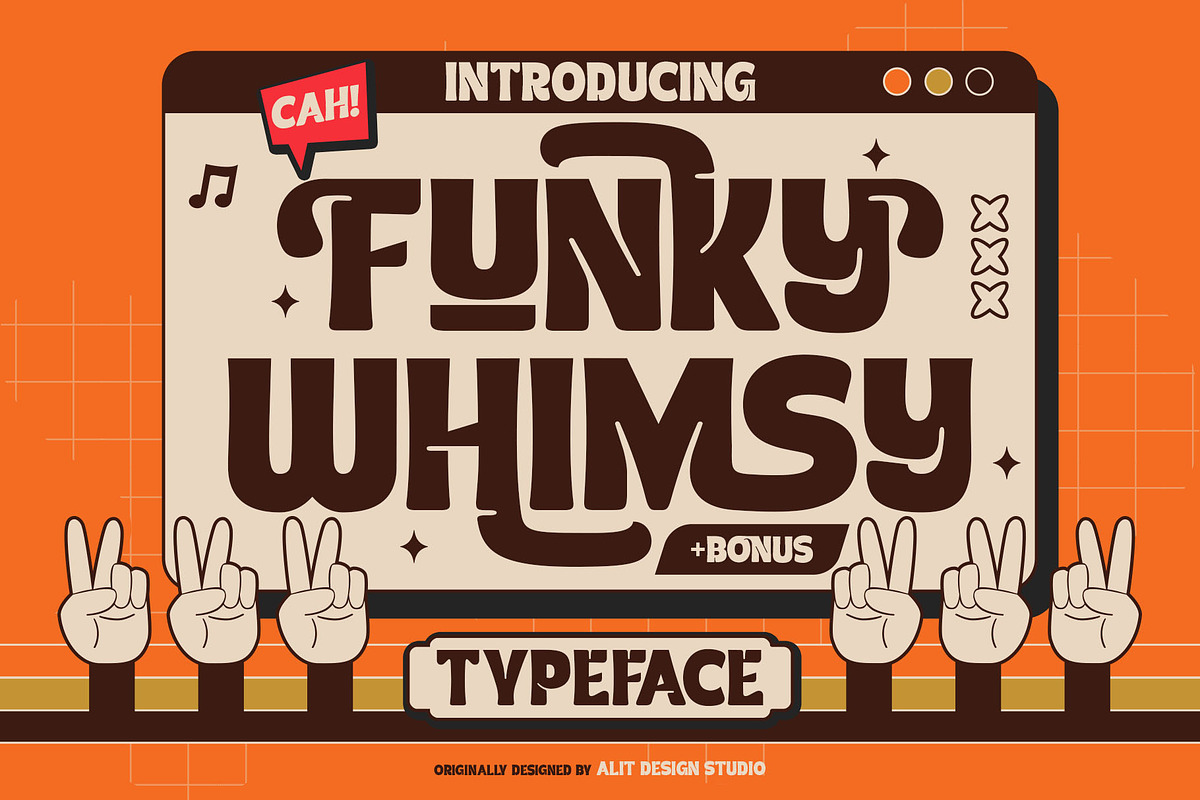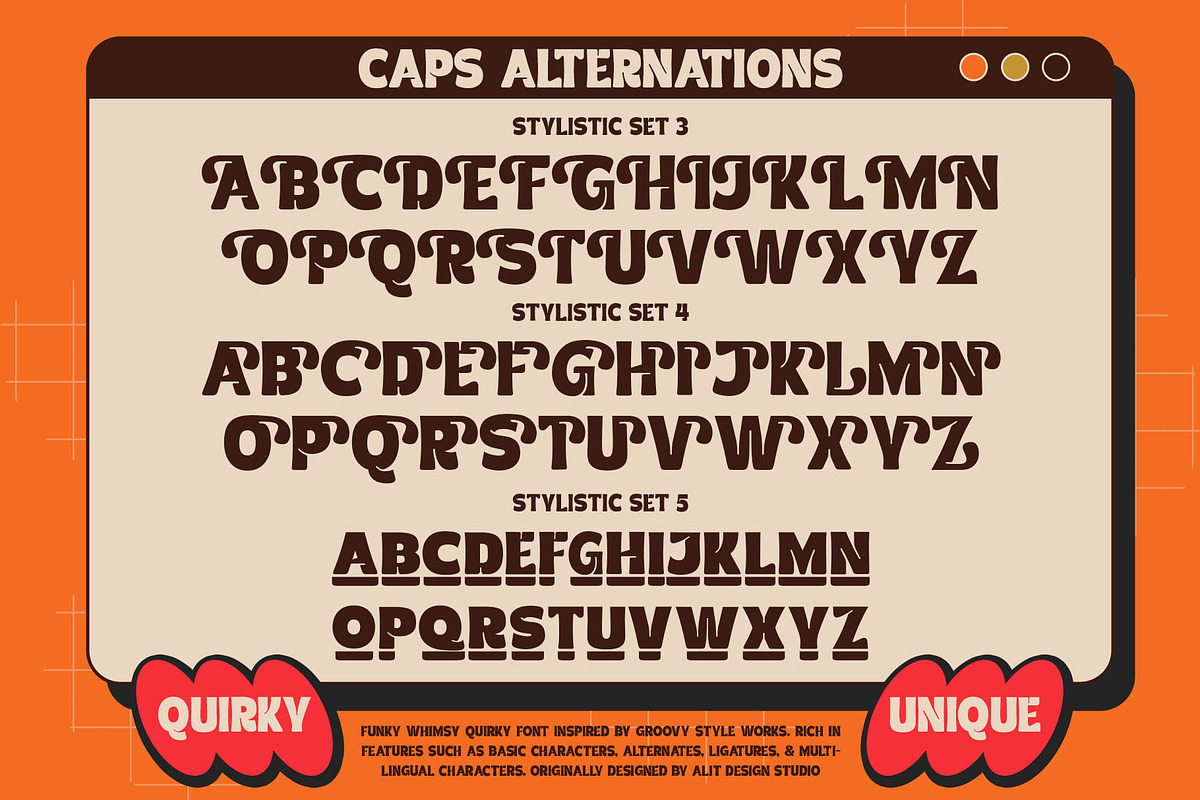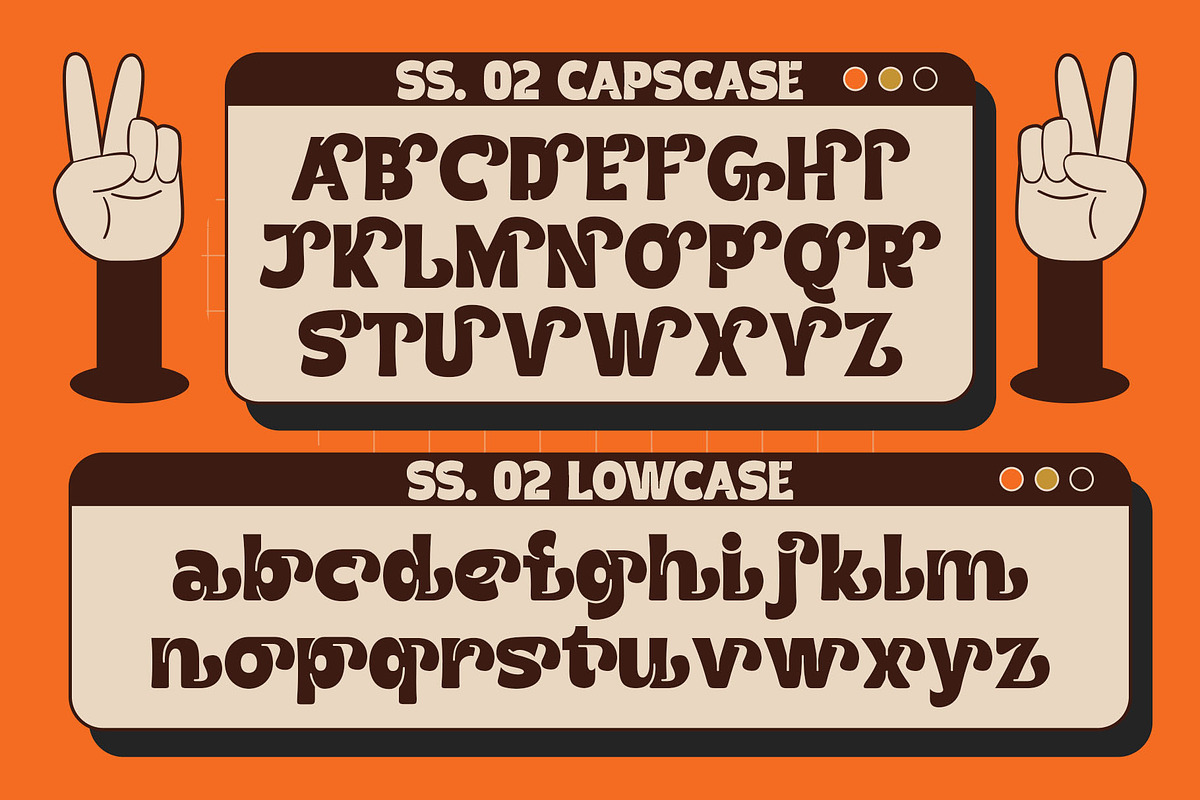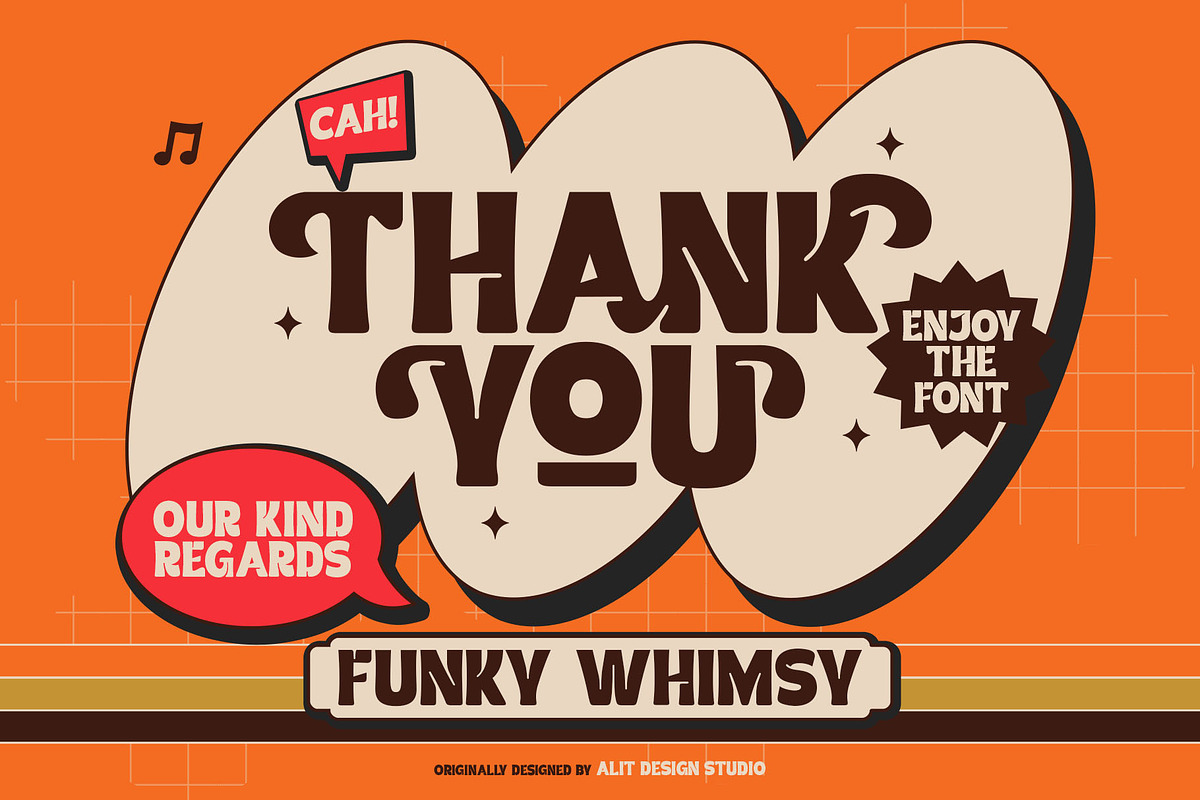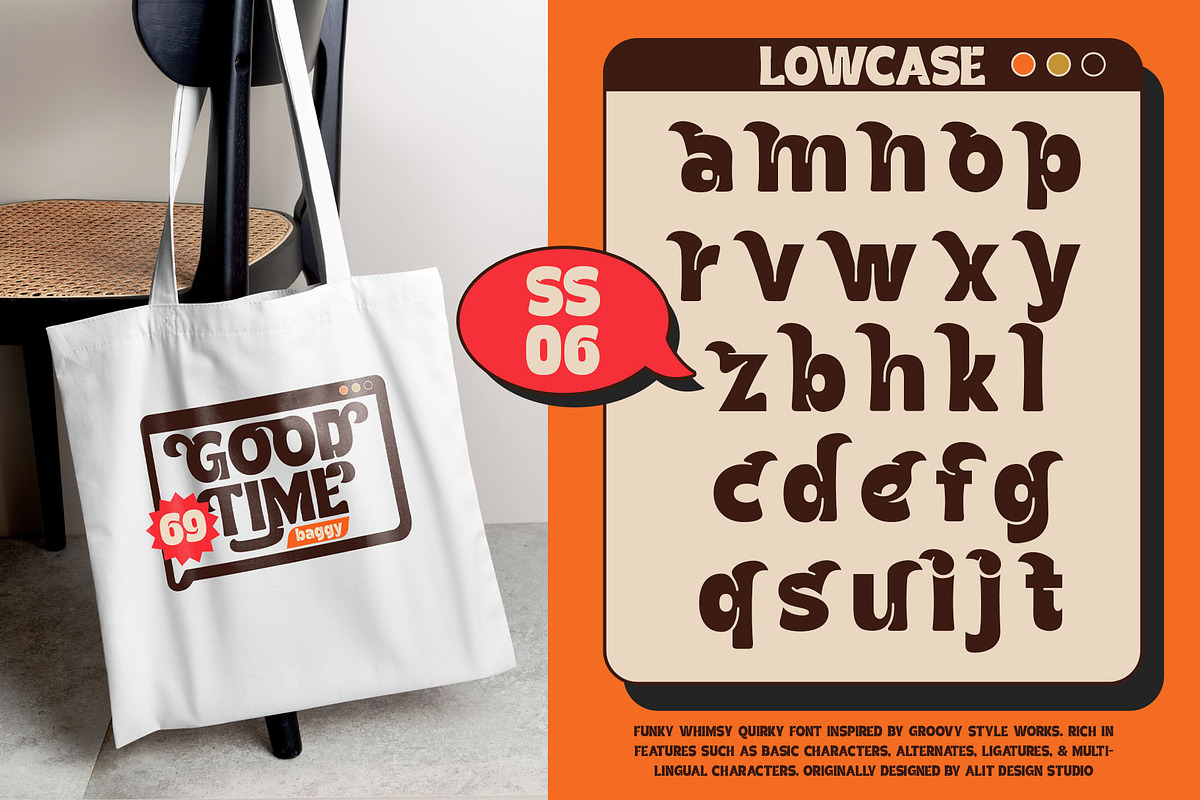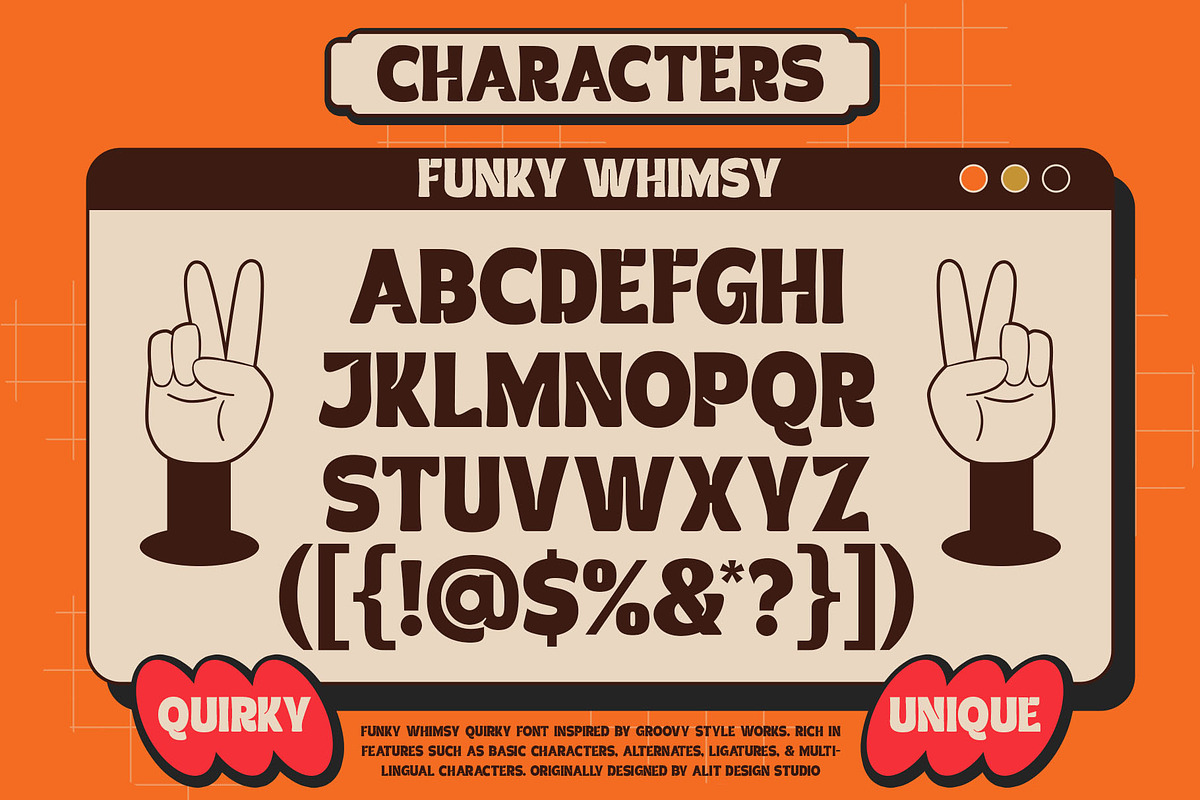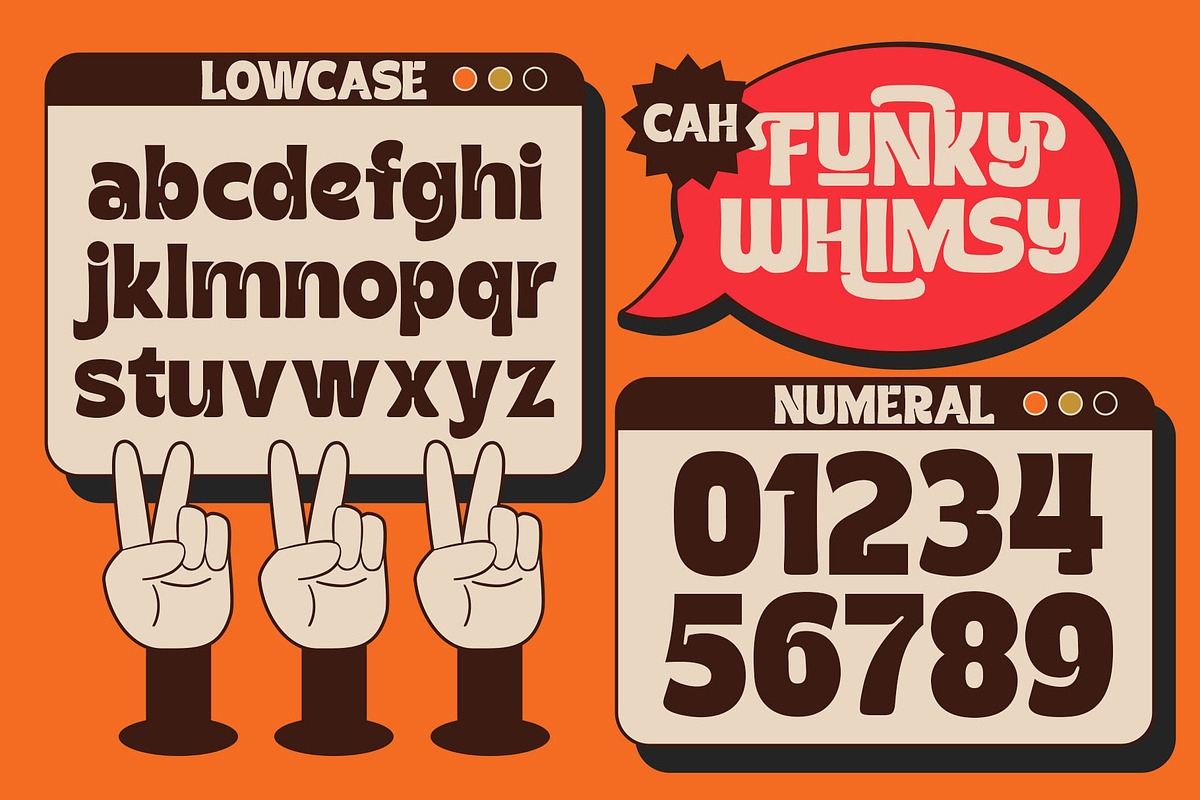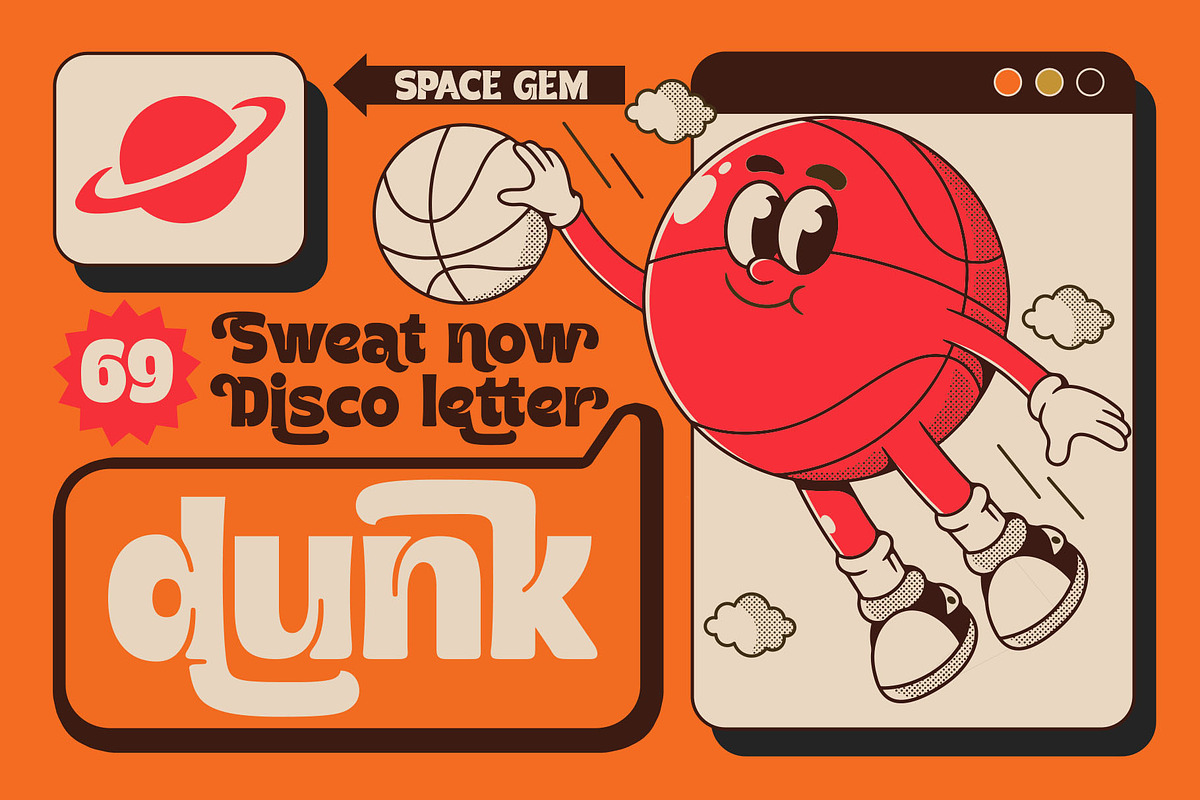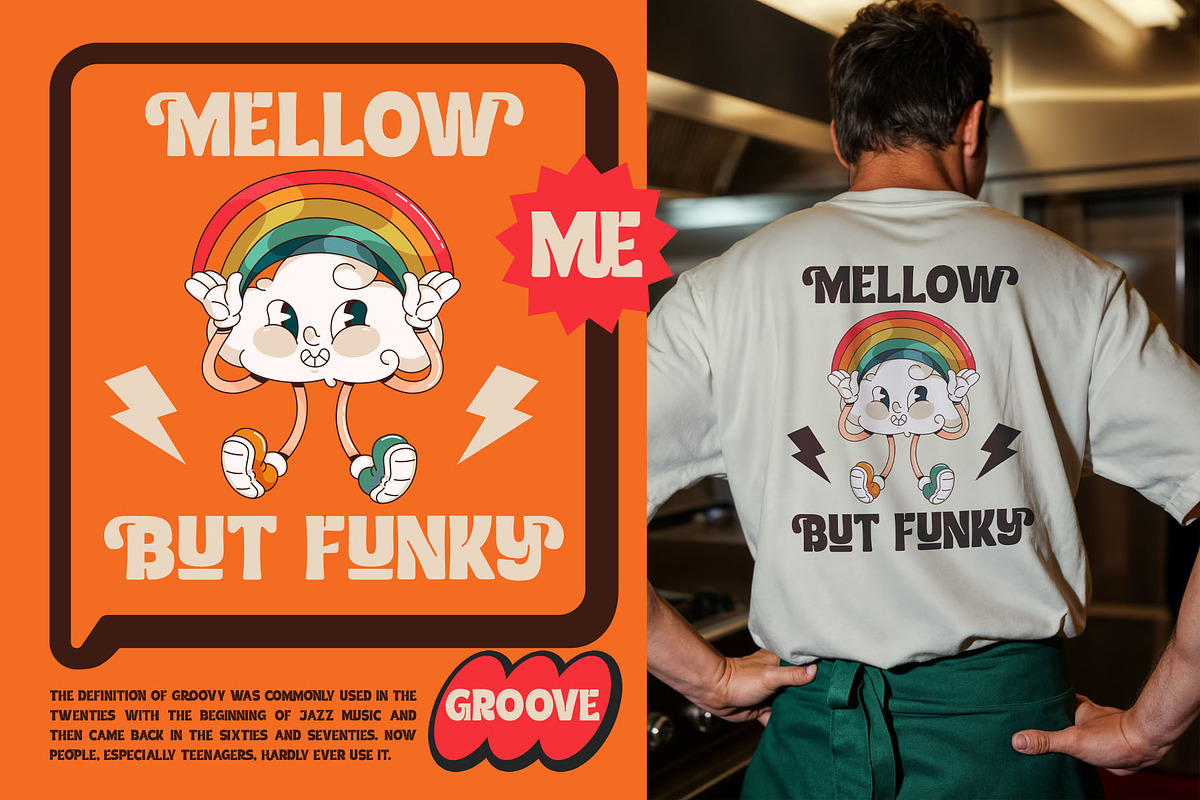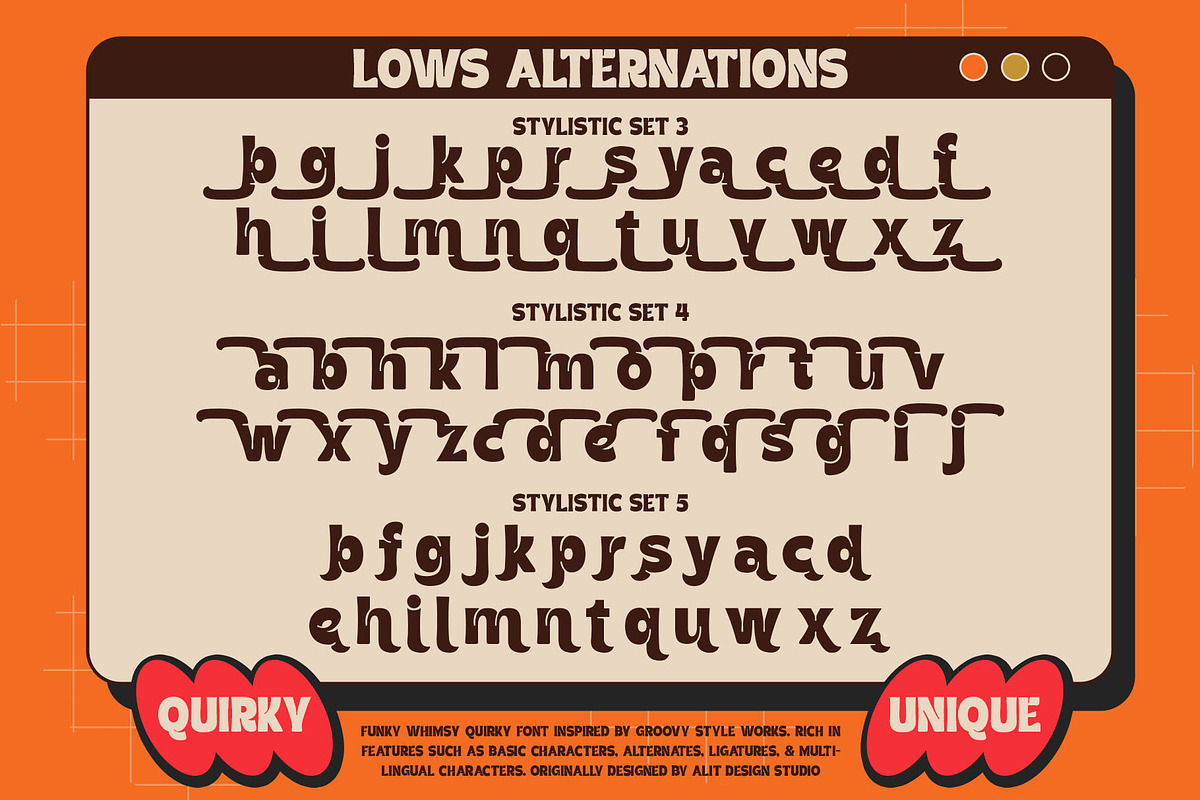
Funky Whimsy Typeface
Step back in time and add a splash of retro fun to your designs with the Funky Whimsy Typeface! Originally designed by Alit Design Studio, Funky Whimsy is a quirky, bold, and incredibly unique display font inspired by the golden era of groovy 70s style. With its thick, bubbly curves, playful letterforms, and unapologetically retro vibe, this typeface is built to make your designs pop, dance, and stand out from the crowd.
Whether you are designing a standout logo, eye-catching packaging, or vibrant merchandise, Funky Whimsy brings an instant wave of nostalgia and cheerful energy to any project.
Why You’ll Love Funky Whimsy:
This isn't just a standard alphabet—it’s a massive typographic playground. Funky Whimsy is absolutely packed with OpenType features, giving you ultimate creative control. With a huge variety of stylistic alternates spanning from Stylistic Set 01 to Set 10, you can mix and match character shapes to create custom, hand-lettered looks in seconds.
Want to add even more character? Dive into the extensive collection of custom ligatures and playful Dingbat Ligatures (featuring retro icons, peace signs, sparkles, and more) to give your artwork that perfect, finished touch.
🌟 Perfect For:
Merchandise & Apparel: (T-shirts, tote bags, stickers, and enamel pins)
Branding & Logos: (Quirky cafes, creative agencies, and retro-themed brands)
Print Design: (Posters, album covers, greeting cards, and editorial layouts)
Digital & Social Media: (Instagram quotes, YouTube thumbnails, and TikTok graphics)
Packaging: (Snack brands, cosmetics, and beverage labels)
✨ Key Features:
Basic Characters: Uppercase & Lowercase A-Z
Numerals & Punctuation: Complete set of numbers and standard punctuation
Massive Alternates Library: Stylistic Sets 01 through 10 for both uppercase and lowercase letters, offering endless stylistic variations
Standard Ligatures: Extensive custom pairs for both Caps and Lows to ensure smooth, natural typography
Dingbat Ligatures: A special set of groovy icons and illustrations built right into the font
Multilingual Support: Ready for global reach with rich multilingual character inclusion